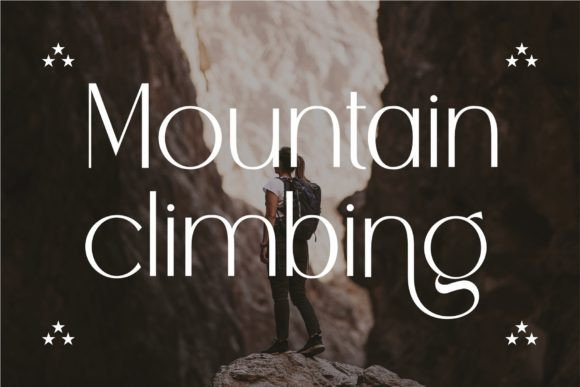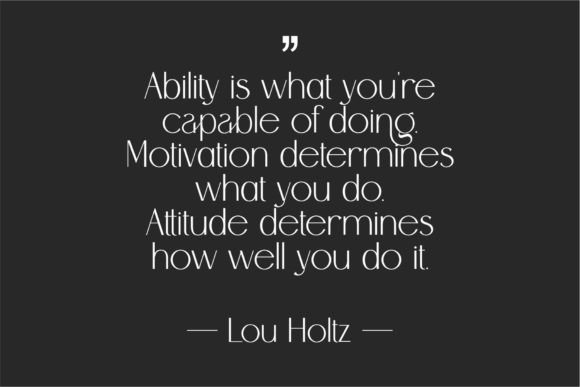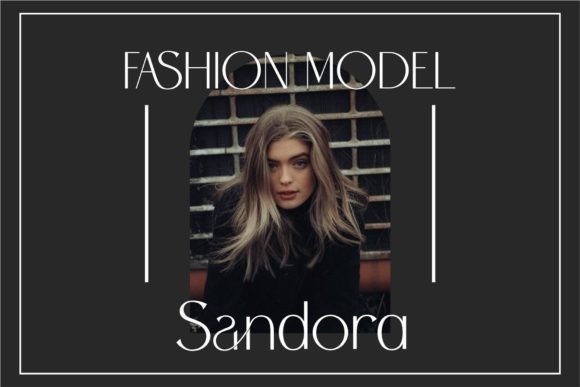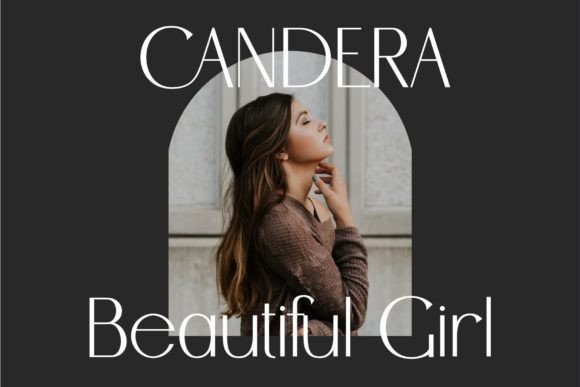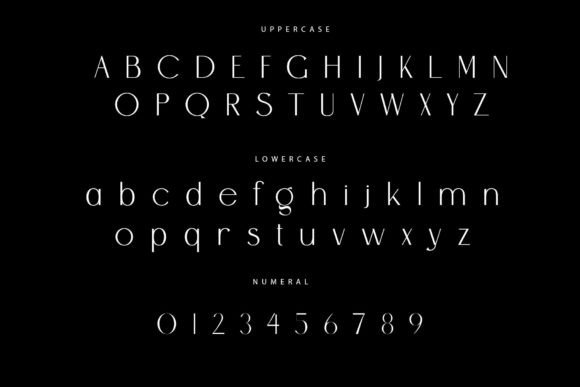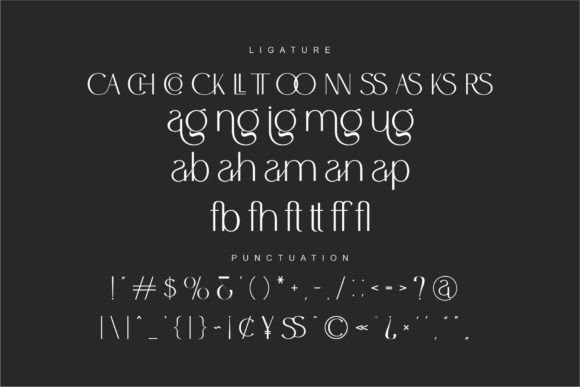
Introduction to Maftuh Font
Imagine you’re brainstorming ideas for a new logo design, and you want to create a simple yet elegant visual identity for your brand. You’ve got a vision in your mind, but you need the right design resource to bring it to life. That’s where the Maftuh Font comes in – a high-quality, sans serif font that exudes visual elegance and sophistication.
As a designer, you’re always on the lookout for fonts that can elevate your creative project and make it stand out. Maftuh Font is perfectly suited for projects that require a clean and minimalist aesthetic, such as lifestyle designs, magazines, and titles. With its transparent background and clean lines, this font is a valuable addition to any designer’s toolkit.
Key Features of Maftuh Font
- High-quality design resource suitable for various creative projects, including graphic design, digital art, and web design.
- Comes in a transparent background option, allowing for seamless integration into designs and minimizing the need for additional editing.
- Features a modern and sleek design aesthetic, perfect for designers seeking a contemporary look.
- Designed with high resolution (300 DPI) for crisp and clear display, ensuring that the font looks great on both digital and print materials.
Honest Review: Maftuh Font
As a designer, I’m always on the lookout for high-quality design resources to enhance my creative projects. The Maftuh Font caught my attention with its unique style and versatility.
What works well about the Maftuh Font is its extensive character set, which includes a wide range of languages and special characters. This makes it a great choice for designers working on projects that require internationalization. ✨ The font also has a transparent background, making it easy to use on various design backgrounds. ✨
- High-quality design: The font has a professional and modern look, perfect for creative projects that require a high-end feel.
However, I do have a few limitations to note: ⚠️ The font may not be suitable for small text sizes, as the characters can become blurry. ⚠️ Additionally, the font’s unique style may not appeal to all designers.
Overall, I’m impressed with the Maftuh Font and would recommend it to designers looking for a high-quality, versatile font for their creative projects. While it may have some limitations, its benefits far outweigh its drawbacks.
The Maftuh Font is a versatile and high-quality design resource ideal for various creative projects. With a transparent background, this font can be easily integrated into different design applications.
To get the most out of the Maftuh Font, experiment with different font sizes, colors, and combinations. This will help you create unique and eye-catching designs.
The Maftuh Font is ideal for a variety of design projects, including:
- Graphic design and visual identity
- Print and digital marketing materials
Alternatives to Maftuh Font
Does the Maftuh Font include a transparent background?
Yes, the Maftuh Font includes a transparent background, making it ideal for designs that require a clean and seamless look. This feature allows you to use the font on various backgrounds, from solid colors to complex patterns, without any visual distractions.